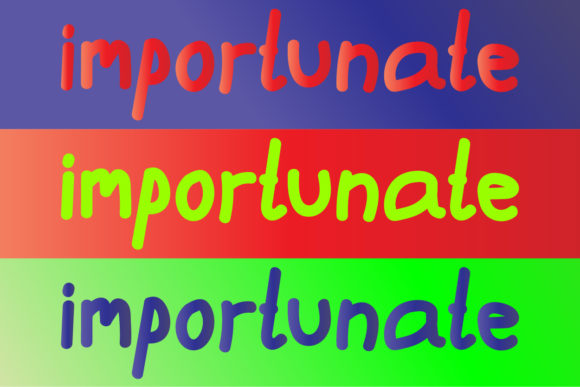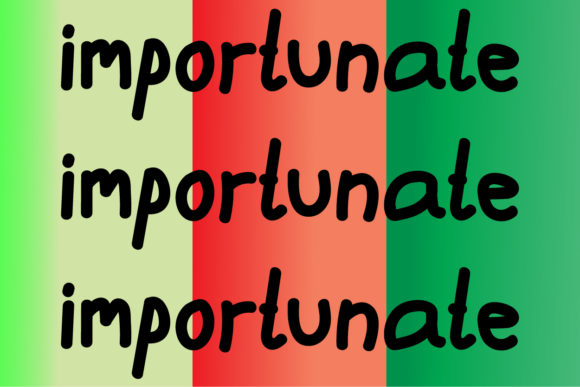
Importunate Font
About Importunate Font
Importunate is a simple and casual handwritten font. Its natural and unique style makes it incredibly fitting to any school or children project. The only limit is your imagination!